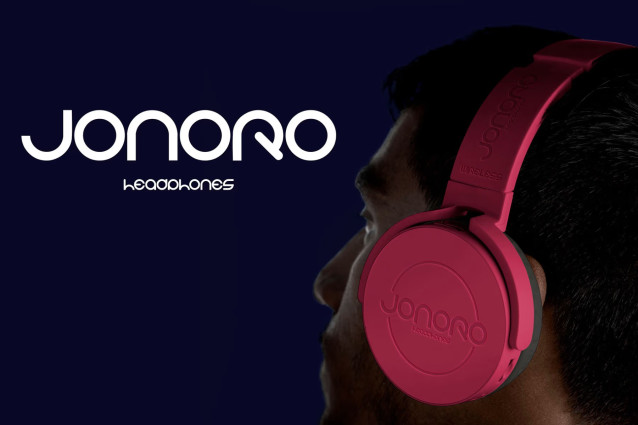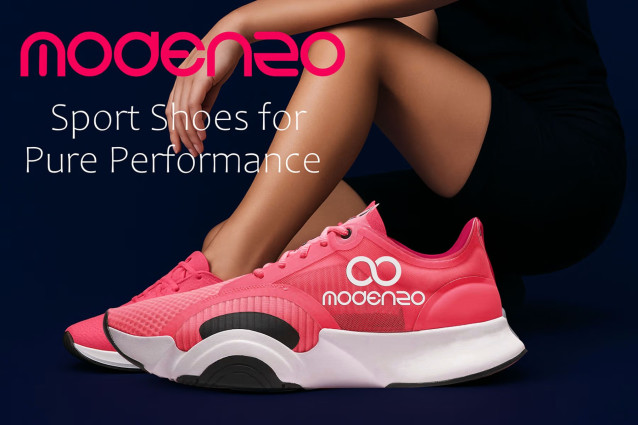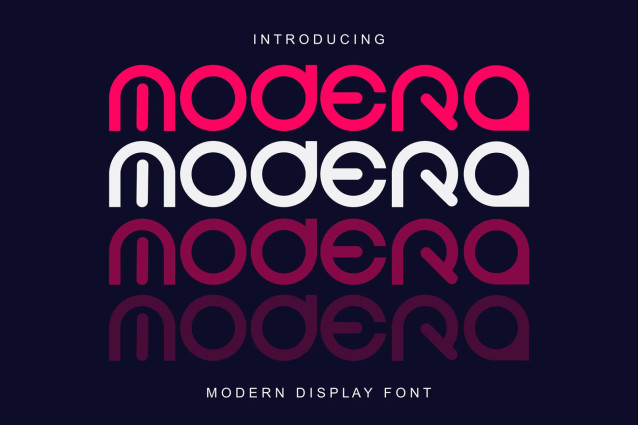
Modera Display Sans Serif Font
Modera Display Sans Serif Font is a modern all-caps typeface with alternates, swashes, ligatures, multilingual support, OTF, TTF.